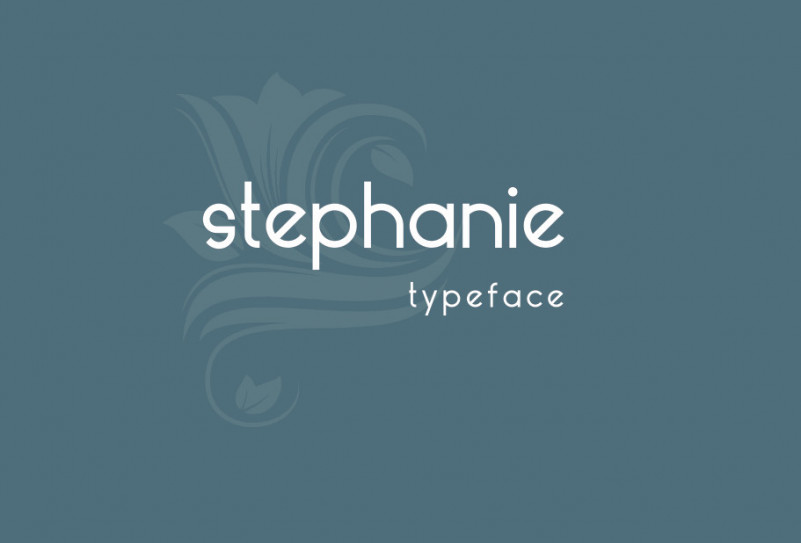
Stephanie Font
Stephanie is free lowercase sans serif typeface with a feminine feeling & style; inspired by cuteness, beauty and loveliness. This font is free for both personal and commercial use; you can download it in either otf or ttf formats. Stephanie is currently limited to lowercase letters with plans to upgrade with uppercase alphabets soon.